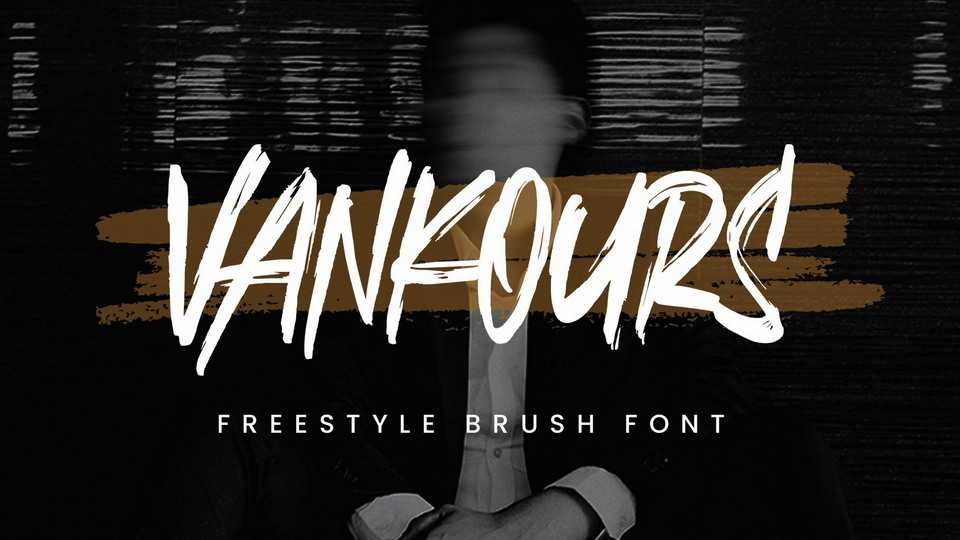
Download Vankours font, a freestyle brush script created with expressive brush strokes. Vankours keeps the details and gives an eye-catchy combination between the uppercase and small caps, also complete with alternates.